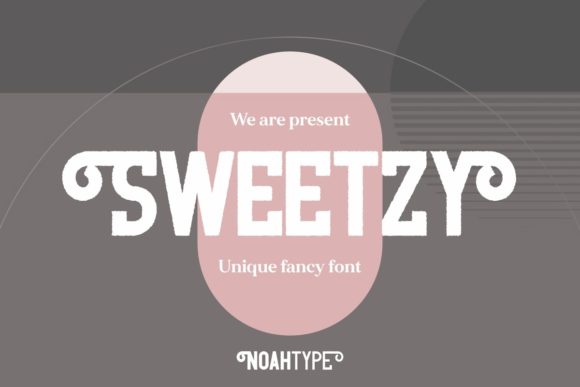
Journey into the realm of captivating design with Sweetzy Font, the ultimate display font that breathes life into your creative endeavors. Its eroded style in every letter adds a touch of distinctive charm, leaving an unforgettable impression on your audience.
With Sweetzy Font, you can transform ordinary words into extraordinary masterpieces. Its ability to effortlessly blend elegance and playfulness makes it the perfect choice for branding, artists, events, make-up, fashion products, coffee shops, book covers, headlines, posters, products, signs, and any project that demands a unique voice.
Unleash your creativity and let Sweetzy Font take you on an artistic odyssey. Picture your brand name adorned with the eroded elegance of Sweetzy Font, leaving a lasting mark on the minds of your clients. Envision your event posters exuding an aura of exclusivity and intrigue, capturing the attention of every passerby. Imagine your book covers radiating a sense of mystery and allure, enticing readers to delve into the pages within.
Sweetzy Font is not just a font; it's a gateway to expressing your individuality and captivating the world with your creative vision. Its PUA encoding ensures effortless access to all glyphs and swashes, empowering you to add intricate details and flourishes that elevate your designs to new heights.
Whether you're a seasoned designer seeking to add a touch of uniqueness to your work or a budding artist eager to make a statement, Sweetzy Font is your perfect companion. Its versatility and charm will ignite your imagination and produce stunning results that resonate with your audience.
Don't let mediocrity define your creative journey. Embrace the eroded elegance of Sweetzy Font and let your designs bloom with captivating beauty. Immerse yourself in the world of endless possibilities, where creativity reigns supreme, and your vision becomes a reality.